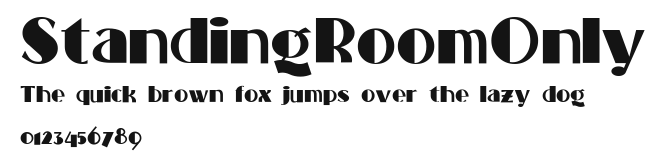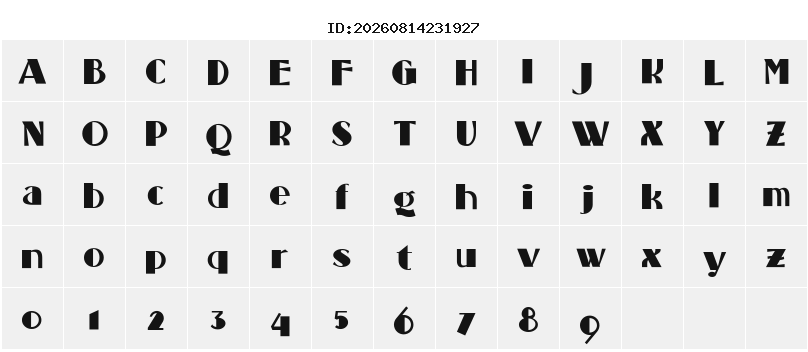
StandingRoomOnly Preview
• Font Name: StandingRoomOnly
• Full Font Name: StandingRoomOnly
About StandingRoomOnly.ttf
StandingRoomOnly.ttf is a modern, elegant sans-serif font designed for ultimate readability and visual harmony. Perfect for branding, headlines, web design, and print materials.